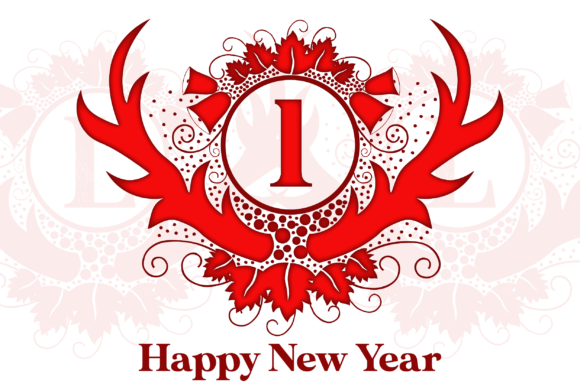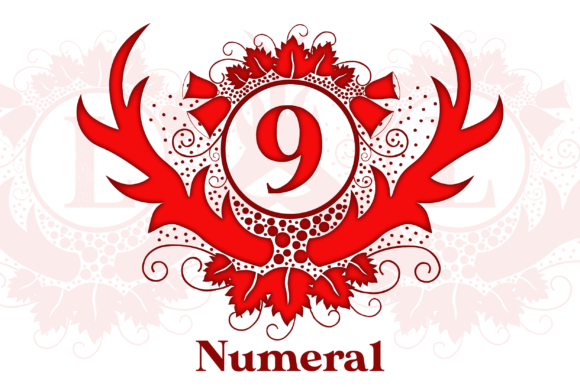
Introduction to Lendeer Font Font
Fonts play a crucial role in design, and the Lendeer Font font is a typeface that brings both character and versatility to any project. Whether you’re working on a branding project, a website, or a print design, the Lendeer Font font offers a unique style that can elevate your work.
Lendeer is a festive and highly detailed decorative font, with characters that resemble the antlers of a deer.
Whether youβre looking for fonts for Instagram or calligraphy scripts for DIY projects, this font will turn any creative idea into a true piece of art .
Key Features of Lendeer Font Font
Why Choose Lendeer Font Font?
The Lendeer Font font is more than just a typeface β it’s a design tool that helps you communicate your message with style and clarity. Its unique character set and versatile design make it suitable for a wide range of applications, from elegant invitations to bold headlines.
With its carefully crafted letterforms and balanced proportions, the Lendeer Font font ensures readability and visual appeal across all mediums.
What makes Lendeer Font font special?
The Lendeer Font font stands out with its unique design, exceptional readability, and versatility across various design applications.